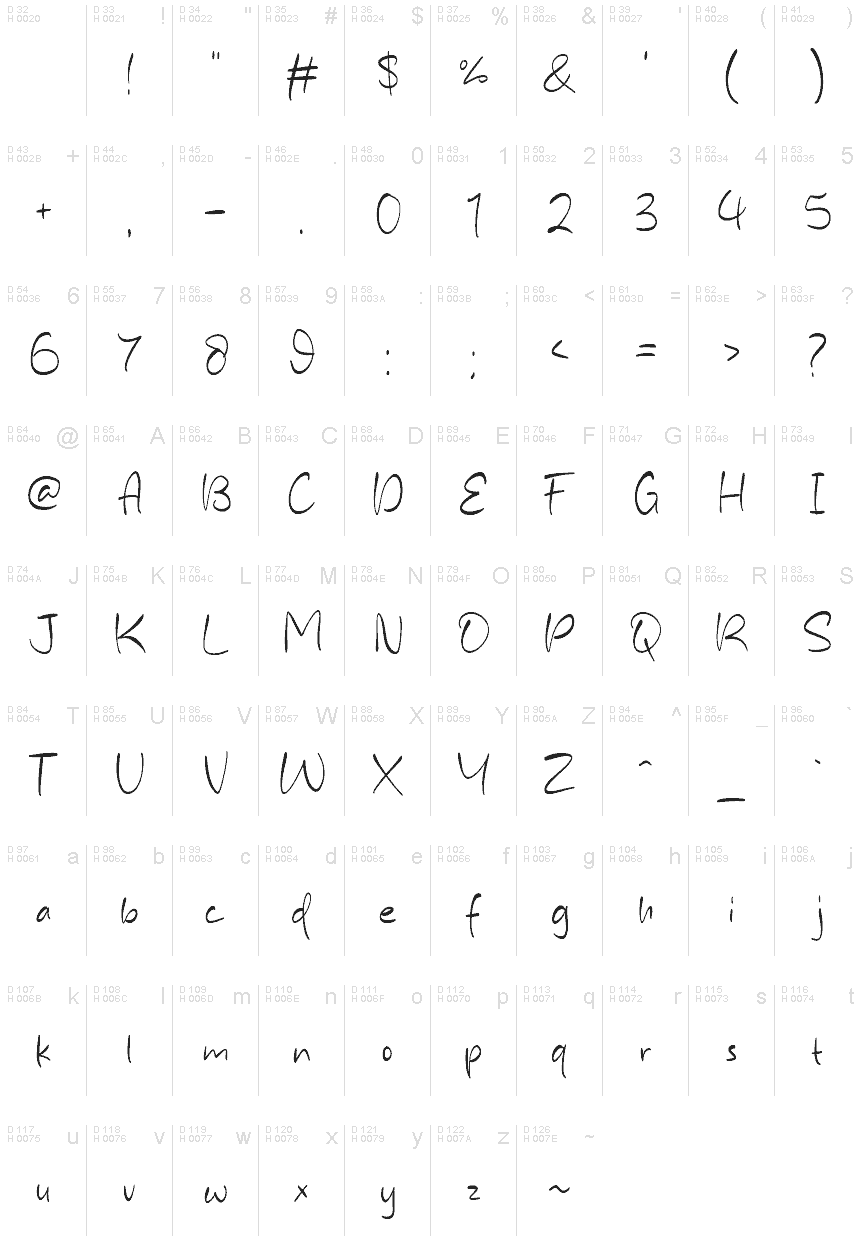
Omantha Signature
Omantha signature handwritten font is the perfect mixture of creativity and minimalism and as the name suggests it works as a stylish signature to your texts. It’s simple and easily readable with its flowing letters. Omantha signature font can be used for a variety of purposes such as social media posts, greeting cards, wedding invitations, branding projects (apparel designs, cosmetic brands), logo creations, quote designs, business cards, notebook cover designs, book titles, etc.